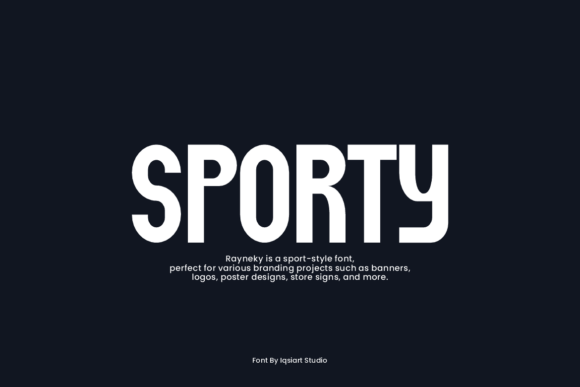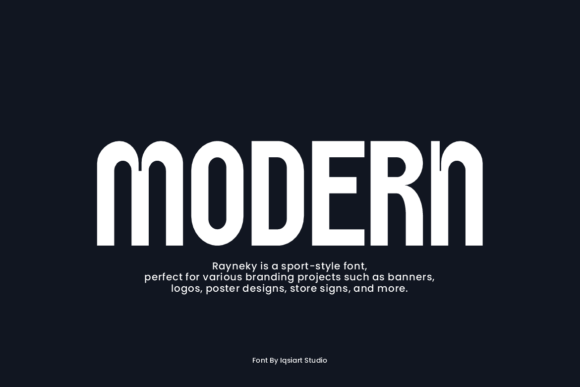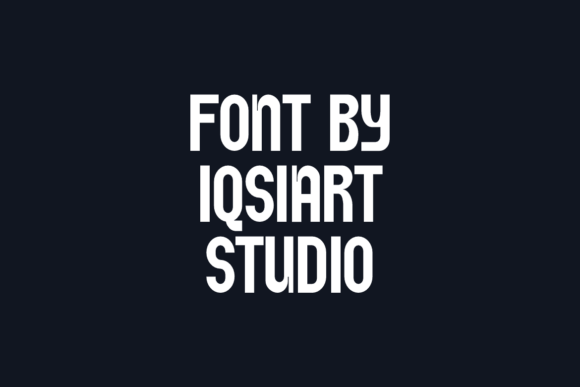
Introduction to Rayneky Font
Rayneky is a bold sans-serif font.
Key Features of Rayneky Font
Why Choose Rayneky Font?
Rayneky Font offers exceptional quality and versatility, making it a valuable addition to your design toolkit. Whether you’re creating for personal projects or commercial use, Rayneky Font delivers professional results.